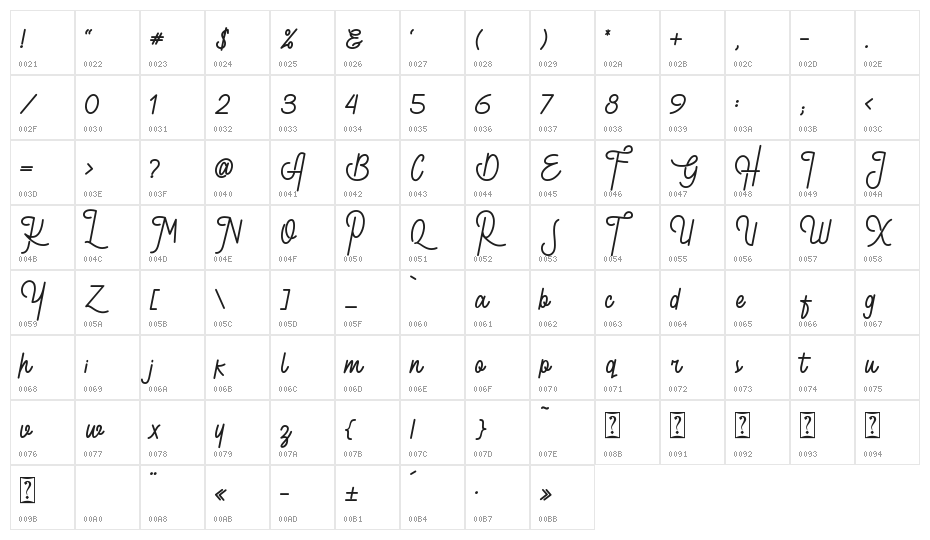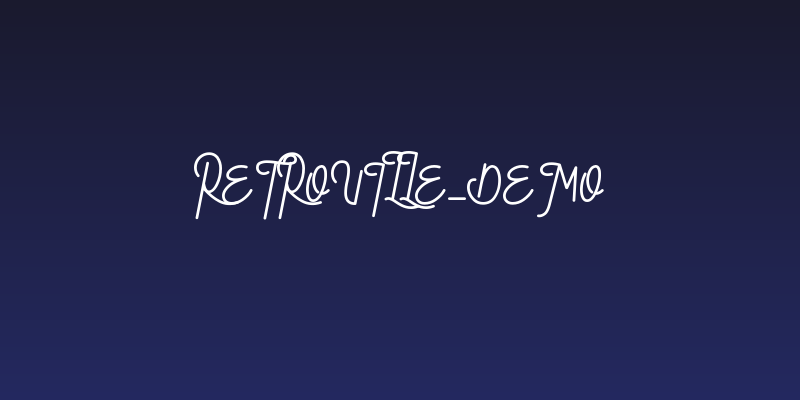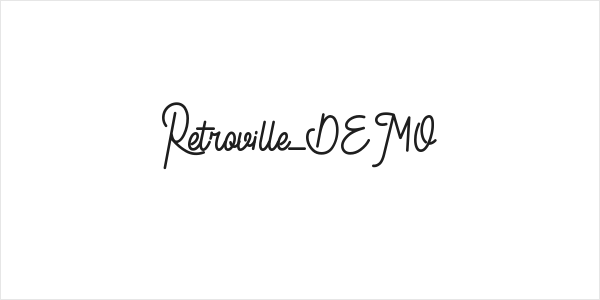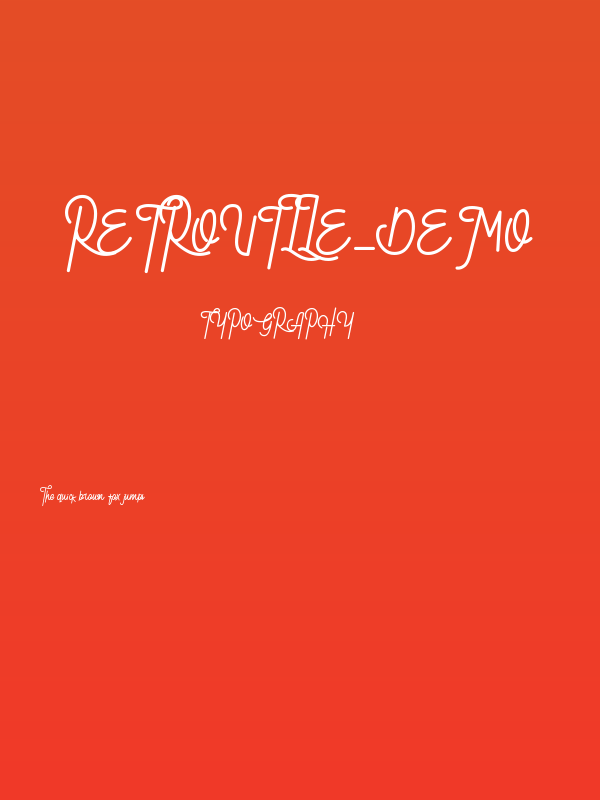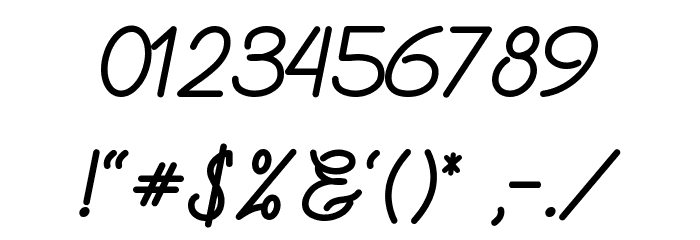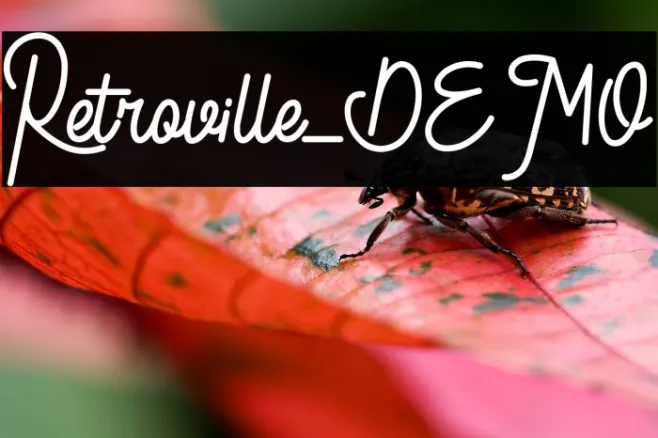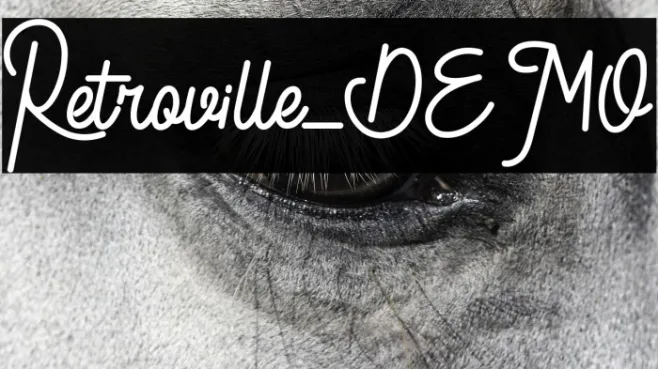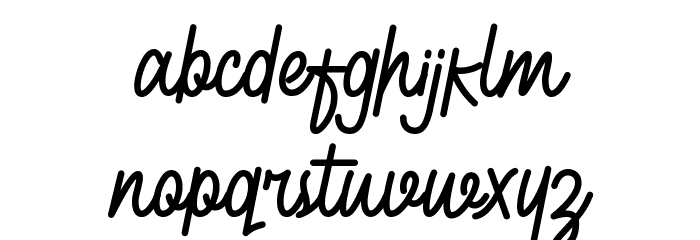
Retroville_DEMO Font
Retroville_DEMO Description
This font features a playful and retro-inspired script style, characterized by its flowing, interconnected letters that convey a sense of movement and energy. The uppercase letters are tall and slender, with unique loops and curves that add a whimsical touch. The lowercase letters maintain a consistent style, with smooth transitions and rounded forms that enhance readability. Numbers and special characters are designed to match the overall aesthetic, ensuring a cohesive look across all text. The font's distinct personality makes it ideal for projects that require a touch of nostalgia and creativity.
| Use Case | Logos, Invitations, Posters |
| Proposed Projects | Ideal for vintage-themed designs, creative branding, invitations, and posters. |